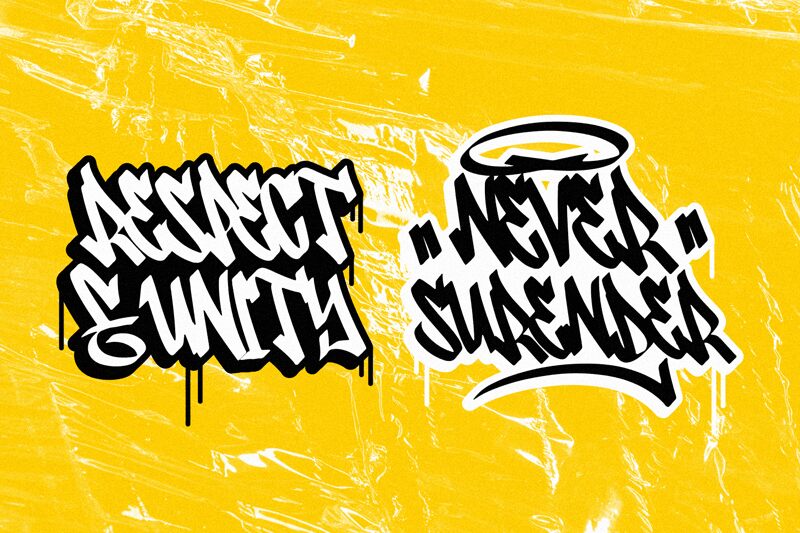
Bluetags font by Forberas Club is a graffiti, condensed typeface with gothic influences and an expressive presence. Angular, urban, and rebellious, this font surely has the power to capture attention within any design it’s used for. Its painted appearance gives it a strong aesthetic that feels organic yet energetic and modern.